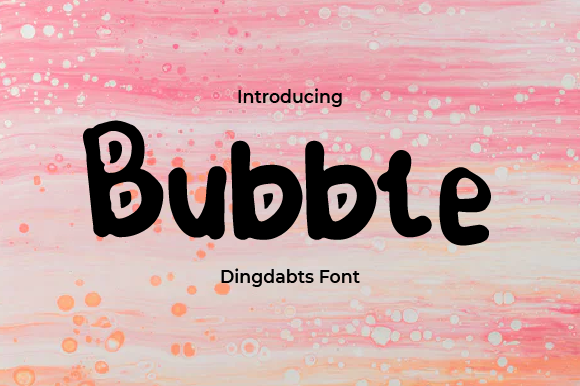
The Sweet Charm of Bubble Font: A Designer’s Delight
I’ll never forget the time I was working on a whimsical craft project for a client who wanted a playful, hand-drawn feel. I had spent hours scouring the internet for the perfect font, but nothing seemed quite right. That was until I stumbled upon Bubble Font. Its sweet, friendly vibe instantly captured the essence of the project, and I knew I’d found my match. In this article, I’ll share my love for Bubble Font, its unique features, and how to make the most of it in your designs.
An Honest Review of Bubble Font
- ✨ Natural and Unique Style: Bubble Font boasts a one-of-a-kind, handwritten look that’s perfect for a wide range of designs, from kids’ party invitations to branding for a trendy cafe.
- ✅ Highly Versatile: Whether you’re working on digital or print projects, Bubble Font adapts seamlessly, making it a fantastic addition to any designer’s toolkit.
- 💫 Easy on the Eyes: The font’s rounded edges and soft curves make it incredibly readable, even at smaller sizes.
While Bubble Font is an amazing addition to any design project, there are a few things to keep in mind:
- 🤔 Legibility at Small Sizes: While generally readable, some of the font’s more intricate details can get lost at very small sizes. It’s best used at larger sizes or for headlines.
- ⚠️ Overuse: As with any font, using Bubble Font excessively can make your design look cluttered. Balance is key.
The Story Behind Bubble Font
Bubble Font was inspired by the sweet, carefree nature of childhood. Its designer aimed to capture the essence of hand-drawn letters found in kids’ artwork and bring them into the digital age. The result is a font that’s both friendly and versatile, suitable for a myriad of creative projects.
A: Absolutely! Its unique and friendly style can add a distinctive touch to professional branding, especially for businesses targeting a younger audience or those in creative industries.
A: Bubble Font stands out with its natural, bubbly feel and high readability. While other handwritten fonts might offer a more rustic or elegant look, Bubble Font strikes a perfect balance between playfulness and clarity.